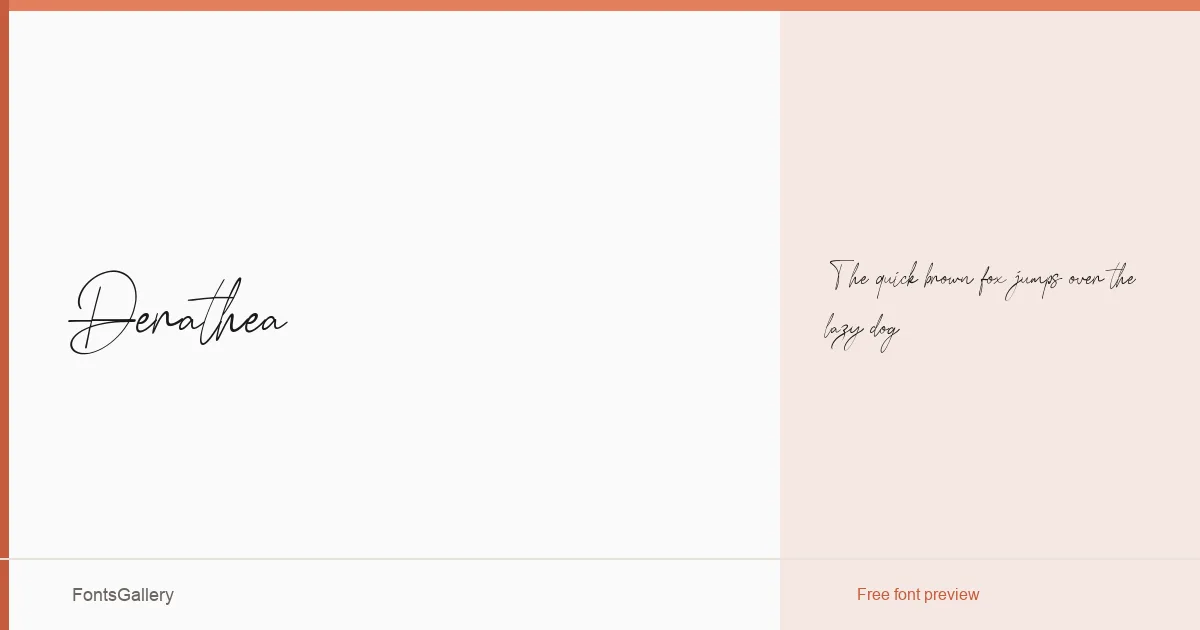
About Derathea Font
Derathea is a script typeface created by Nandini Febriyanti under the Hyperactype foundry. It embodies an elegant and romantic sensibility, making it a distinctive choice for projects that call for a refined, luxurious touch. Its classic character gives it a timeless quality that resonates across a wide range of sophisticated design contexts.
Derathea features the fluid, flowing letterforms characteristic of fine script typography, evoking a sense of elegance and luxury in every curve. The classic construction of its characters lends a romantic grace that feels both polished and intimate. Each glyph is crafted to carry a sense of ceremony and refinement, perfectly suited to its mood-driven aesthetic.
Derathea shines in applications such as wedding stationery, invitation cards, greeting cards, logos, and high-end branding projects where a luxurious and romantic impression is essential. Its script nature makes it especially compelling for headline and display use in contexts that demand elegance and personality. For a balanced typographic pairing, Derathea works beautifully alongside Aresink or the clean neutrality of Helvetica.